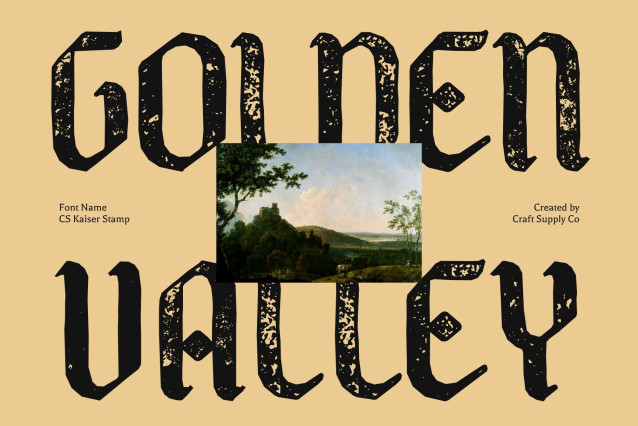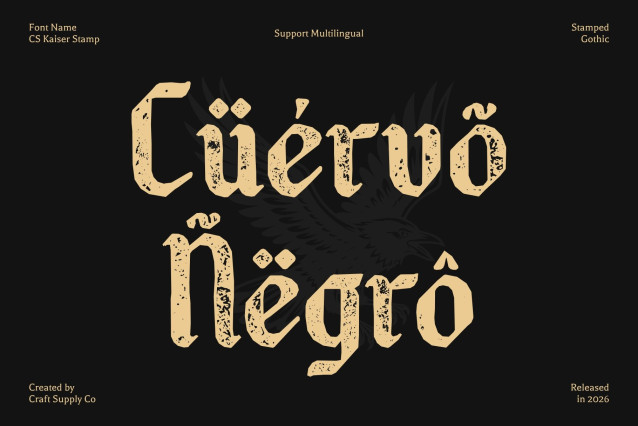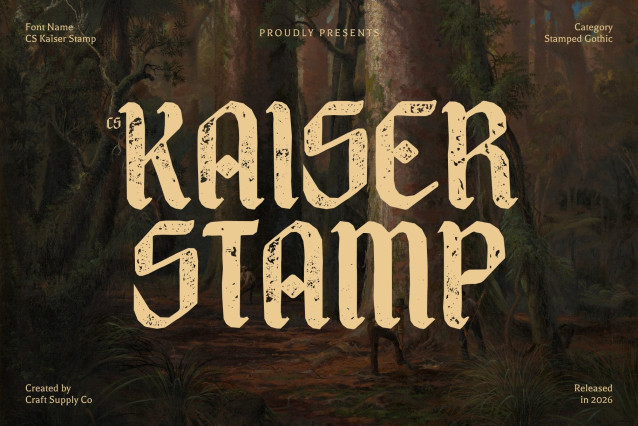
CS Kaiser Stamp Font
CS Kaiser Stamp – Gothic Font: A Timeless Vintage Elegance
Classic Gothic Design with Textured Stamp Character
This is a Gothic display font inspired by medieval calligraphy and vintage print aesthetics. Its sharp, intricate lines and ornate serifs are enhanced with a stamp effect, adding distressed edges, ink texture, and subtle imperfections that evoke the look of traditional printing and aged documents.
Bold and Structured with Handcrafted Depth
The bold, structured letterforms create a commanding visual presence, while the stamped texture introduces an authentic handcrafted feel. This combination enhances the font’s authority and sophistication, allowing its ornate details to stand out beautifully in large-scale designs.